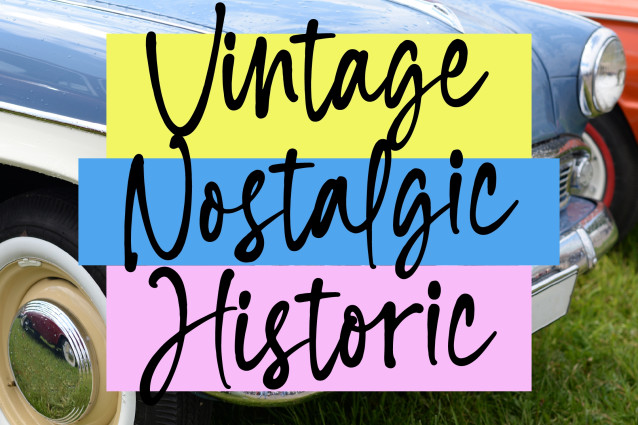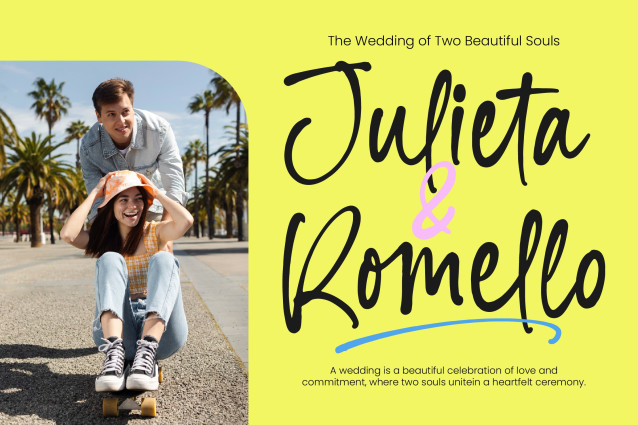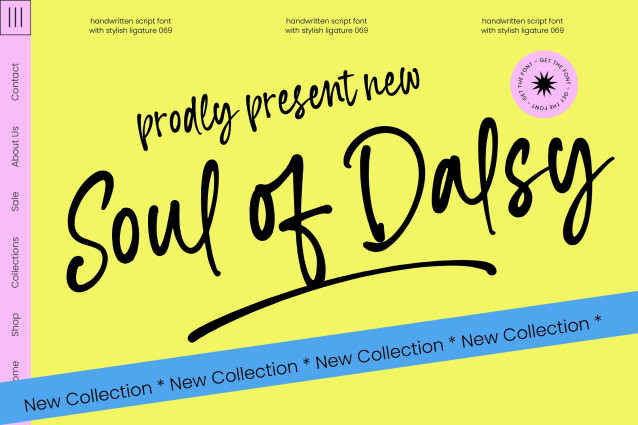
The Soul Dalsy – Handwritten Script Font captures the essence of hand-crafted artistry, offering a bold aesthetic that stands out in a crowded digital landscape. Its natural stroke weights and expressive ligatures provide a rhythmic flow, ensuring that every word feels personally curated and dynamically alive. This font is the ultimate solution for designers seeking a contemporary script that balances organic texture with commercial clarity.
Expand your brand’s reach effortlessly with a font designed for a truly global audience. With its extensive multilingual support, Soul Dalsy – Handwritten Script Font adapts seamlessly across global markets, making it incredibly versatile for international projects. This technical flexibility ensures that your message remains consistent and impactful, regardless of the linguistic context. By choosing Soul Dalsy – Handwritten Script Font, you are investing in a high-performance asset that removes barriers and speaks directly to a diverse clientele.